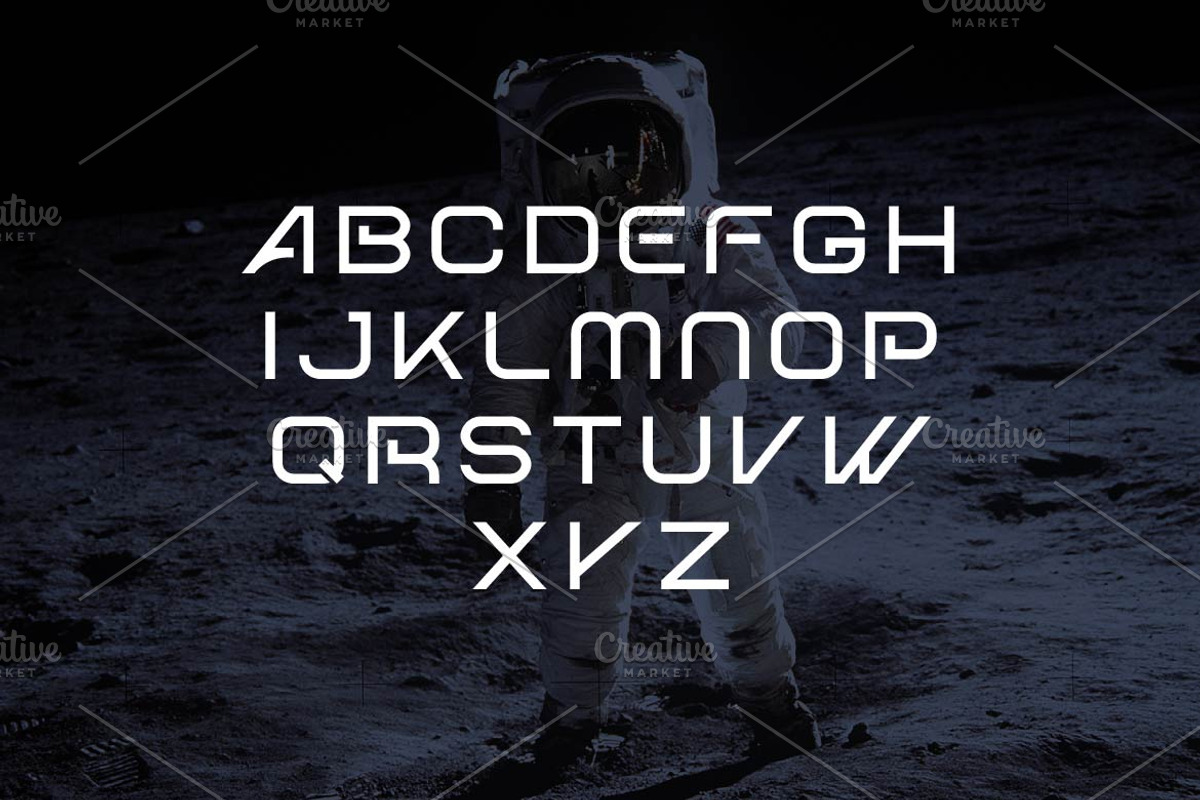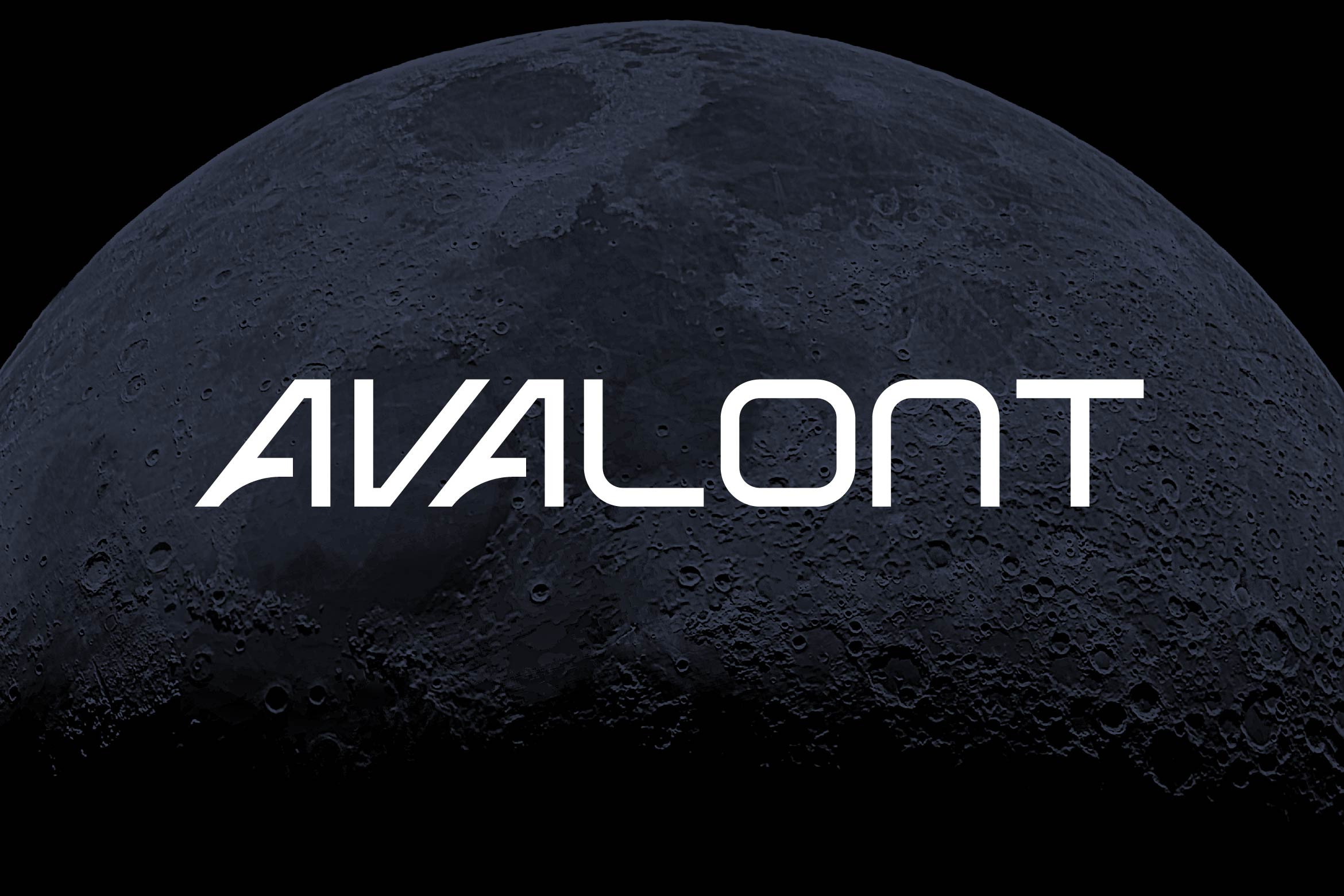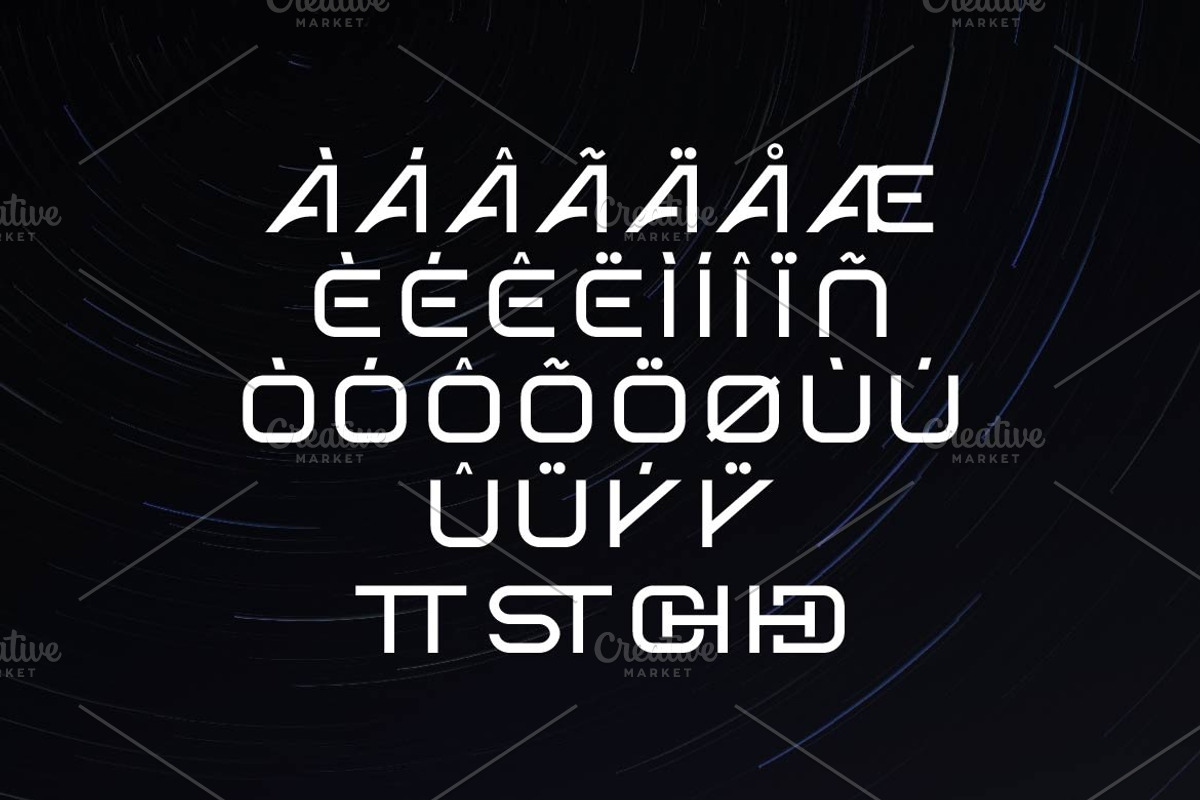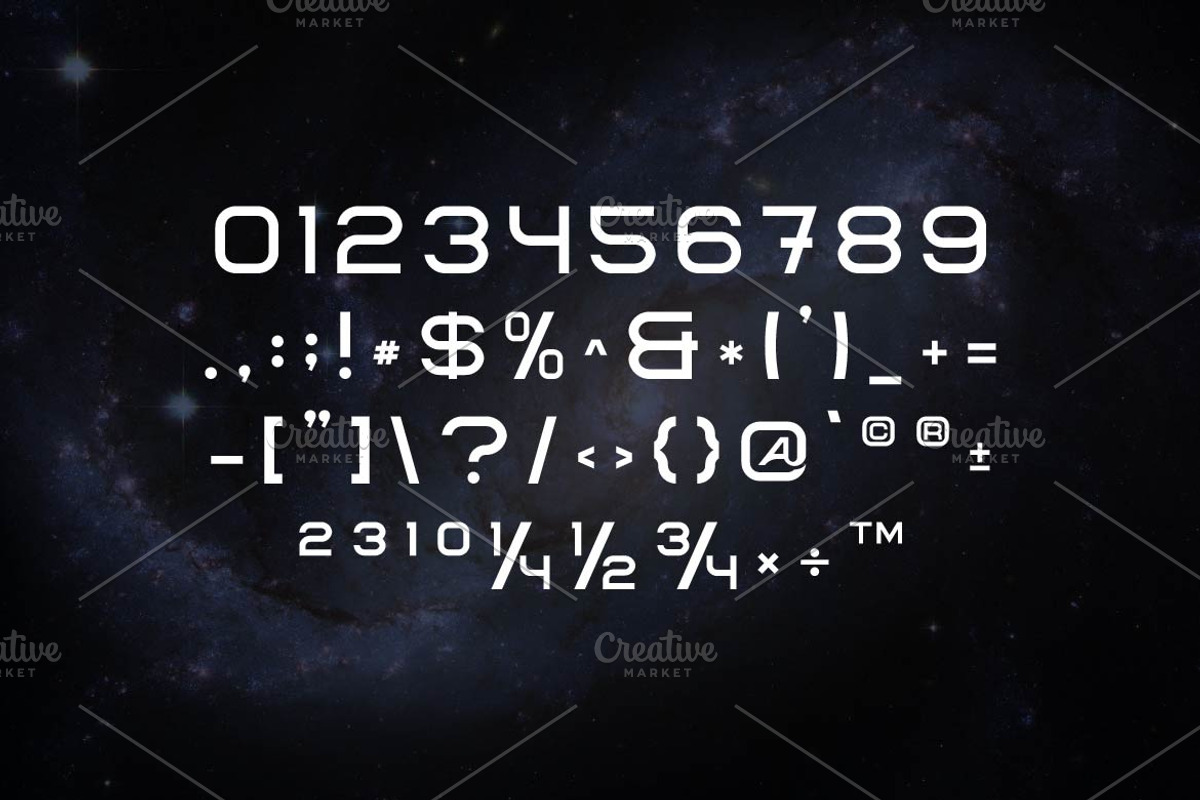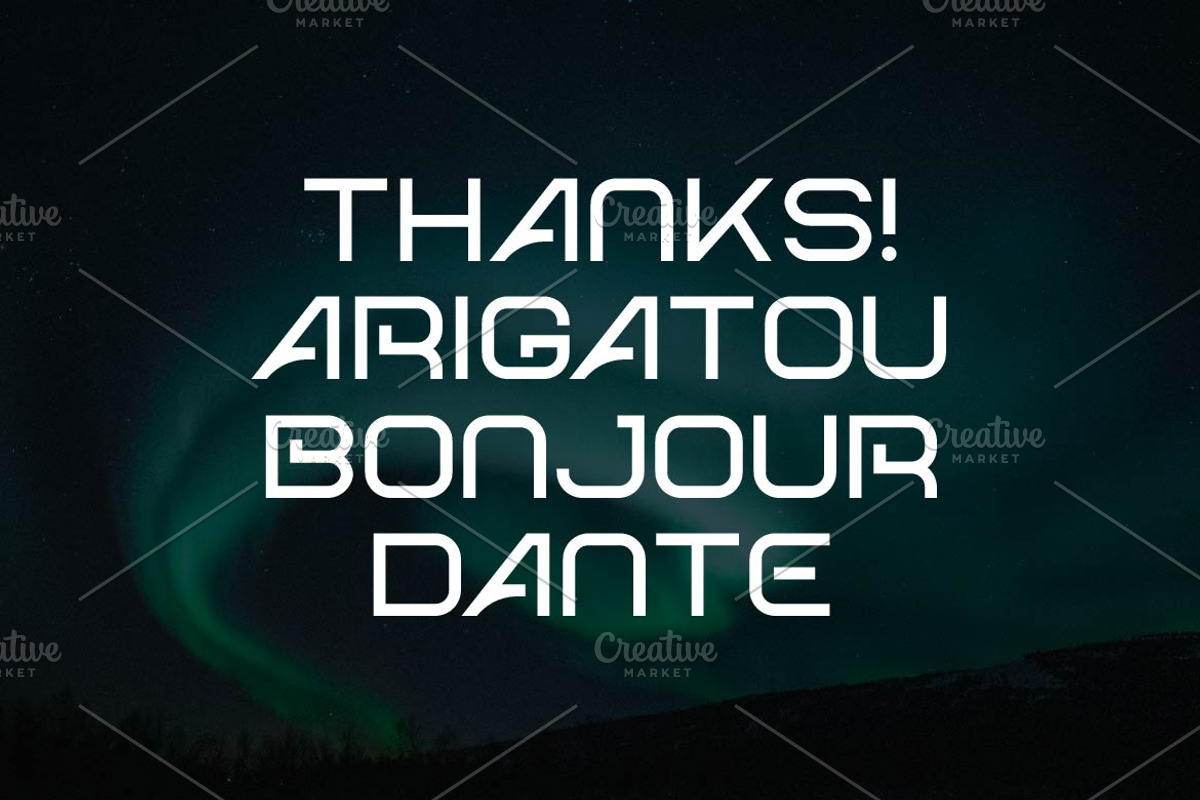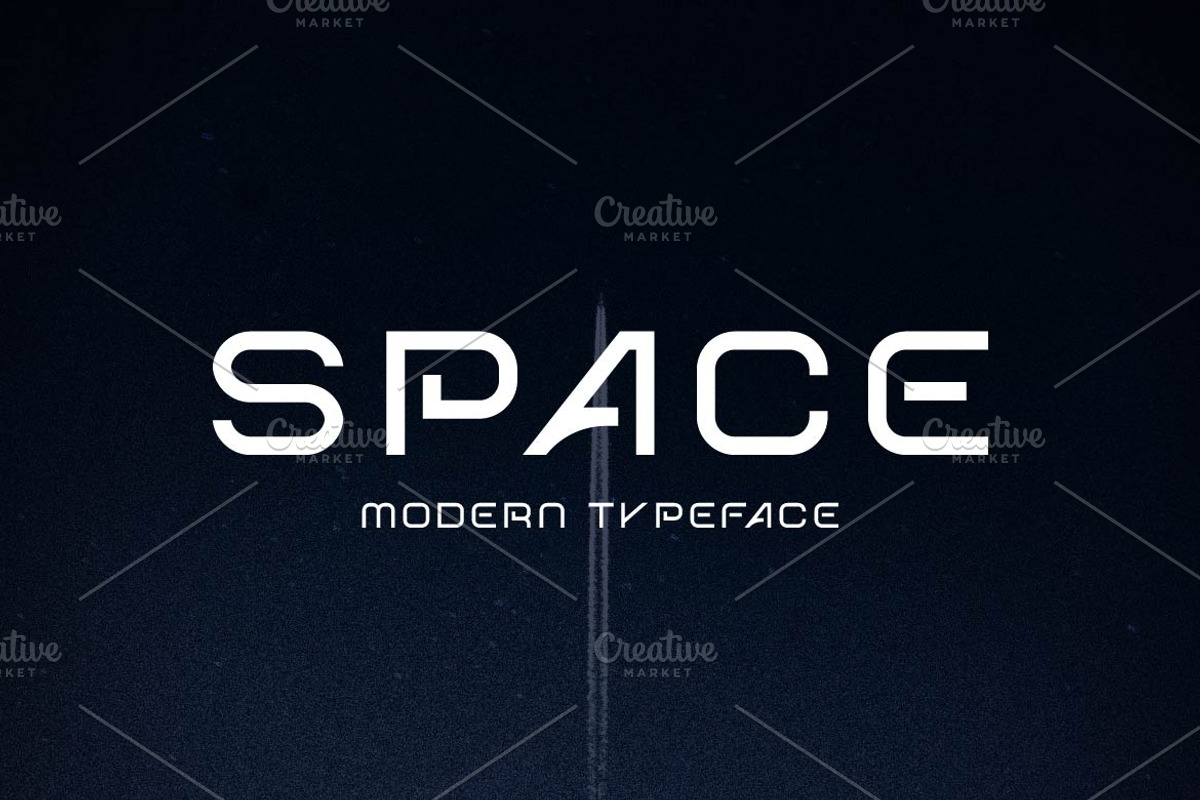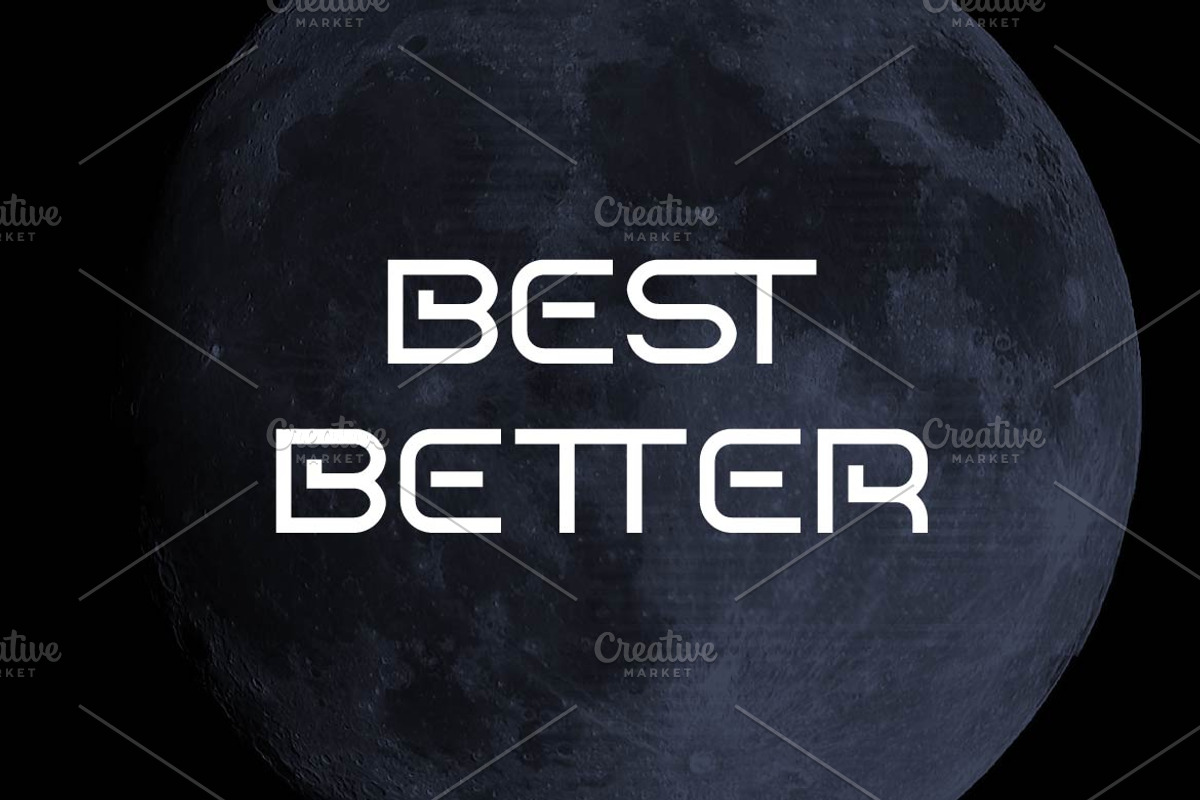
Avalont Modern Space Font
Avalont is a futuristic space-themed sans serif font designed with sleek, modern letterforms that evoke a sense of innovation and exploration. Perfect for sci-fi branding, tech startups, gaming interfaces, and futuristic designs, Avalont combines clean geometry with a cosmic aesthetic. With multilingual support, ligatures, and alternates, Avalont offers versatility while maintaining a bold and futuristic appeal, making it ideal for projects that reach beyond the ordinary.